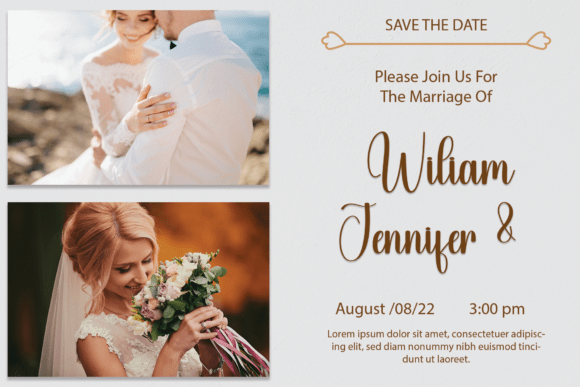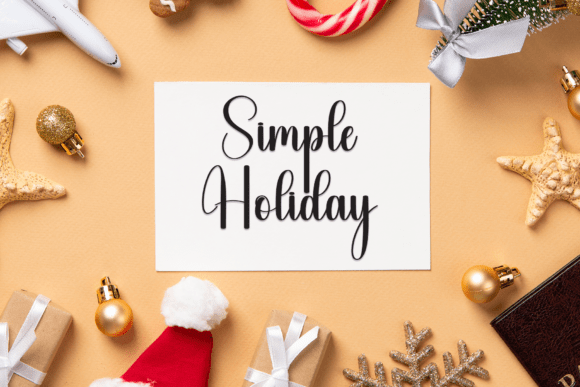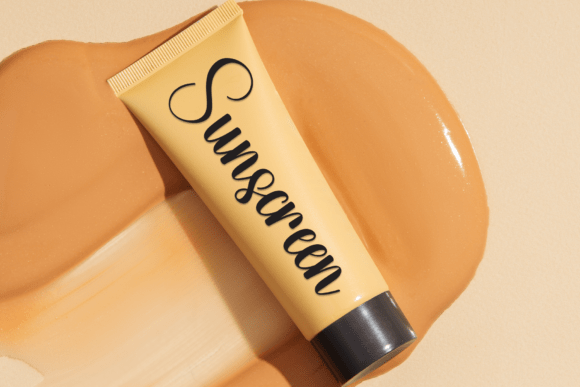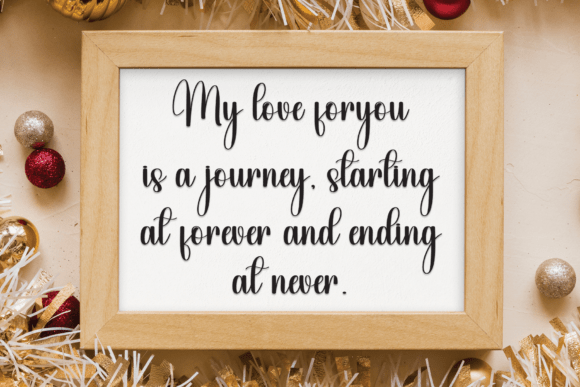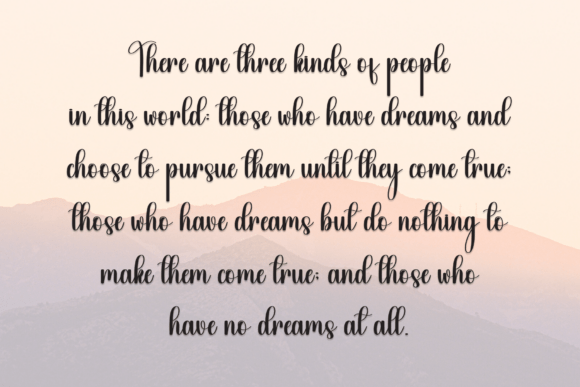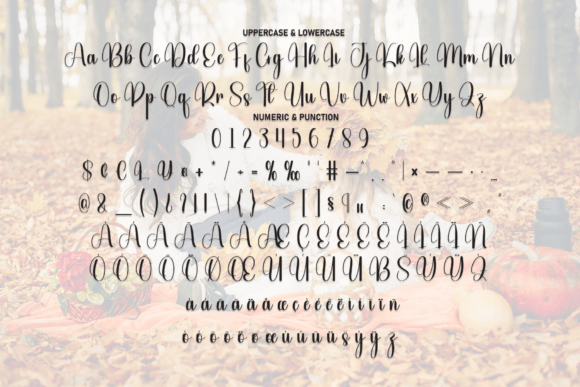
Introduction to Holiday Autumn Font
Holiday Autumn is a graceful and rhythmic script font that captures the warm, organic spirit of the harvest season.
The typeface features high-contrast visual rhythm with thick, grounded downstrokes and extremely fine, wispy hairline connectors It is defined by its expansive, looping ascenders and a bouncy baseline that gives the text a sense of movement and natural beauty.
Key Features of Holiday Autumn Font